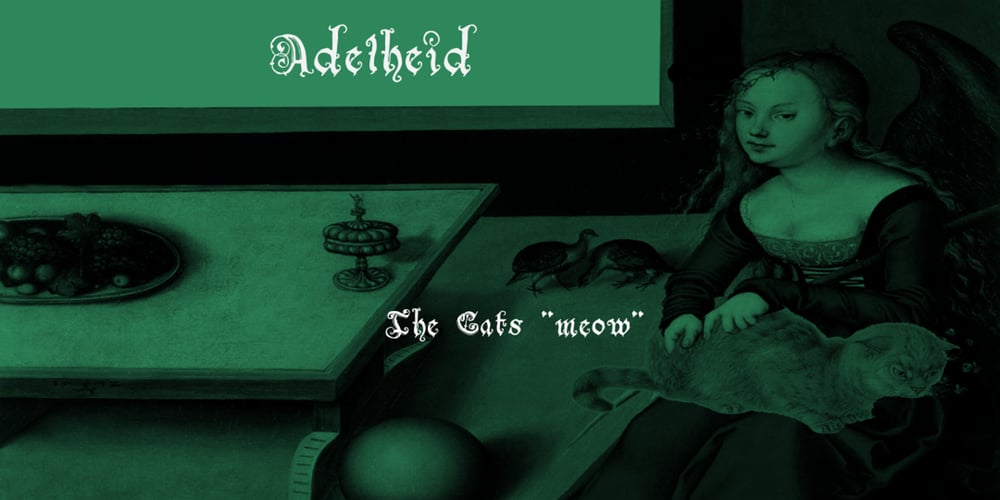
Adelheid Font Family was designed by Shane Brandes and published by Proportional Lime. Adelheid contains 1 styles and family package options. Adelheid a wonderfully whimsical excursion into the realm of blackletter typefaces is a font based on a 16th century Swiss publication. With over 500 glyphs many things are added to make it a fully functional font. It is delivered in two flavors OTF, and TTF.